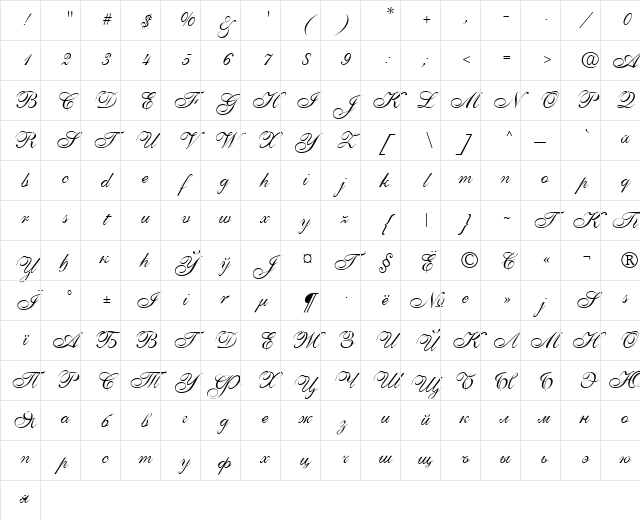
Complete AnastasiaScript Regular glyph index. Displaying only characters natively supported by AnastasiaScript Regular font.
AnastasiaScript flows with the natural rhythm of handwritten lettering, making it ideal for designs that call for warmth and personal expression.
Font Pairing: Combine AnastasiaScript with a simple geometric sans for maximum contrast - the tension between flowing curves and clean structure is a classic typographic pairing.
Pro Tip: Use AnastasiaScript for short runs of text - names, titles, or taglines. Extended body copy in script faces tires the eye quickly.